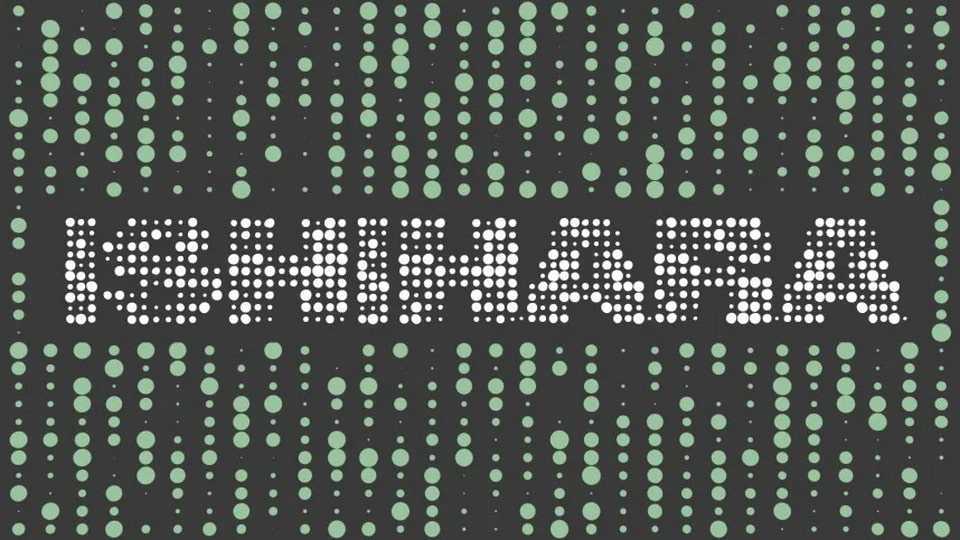
Download Ishihara font, a creative display typeface inspired by the Ishihara color blindness test plates. Formed entirely from precise circular dots, it brings a striking balance between scientific precision and artistic flair.
Designer: Rob Hindley